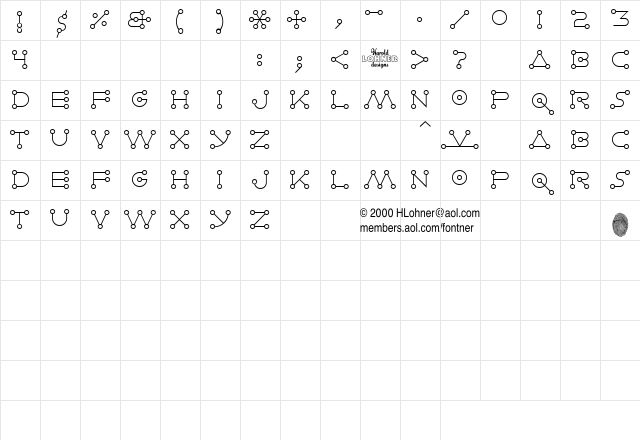
Design Context for Celestial Alphabet
Celestial Alphabet is a composed and adaptable typeface that performs quietly and consistently across a wide range of design contexts.
Pro Tip: Use Celestial Alphabet in both headline and body roles to test its range before committing to a single application.